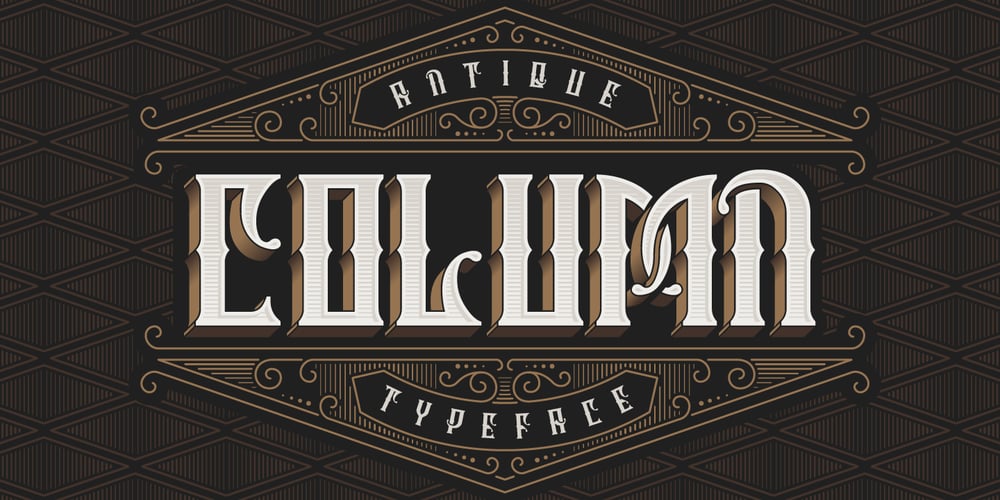
Column Typeface
Column Typeface font
Column Typeface Font Family was designed by Gleb Guralnyk and published by Gleb Guralnyk. Column Typeface contains 4 styles and family package options. “Column typeface” is a vintage classic look font with added volume and graphic lines effect. For each effect you’ll find a separate font file for easy combining and recoloring.